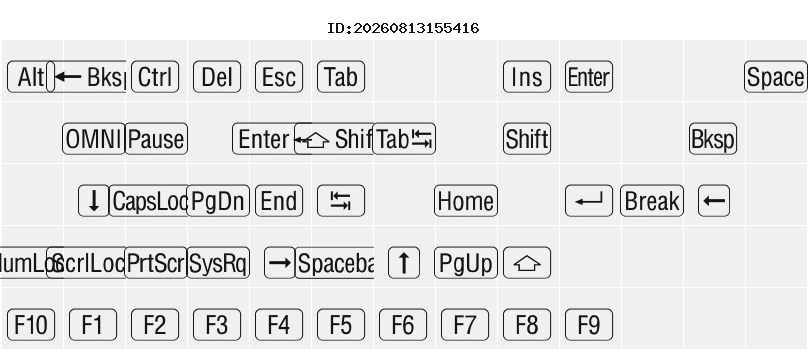
RRKeyCaps-Normal Preview
About RRKeyCaps-Normal.ttf
RRKeyCaps-Normal.ttf is a modern, elegant sans-serif font designed for ultimate readability and visual harmony. Perfect for branding, headlines, web design, and print materials.